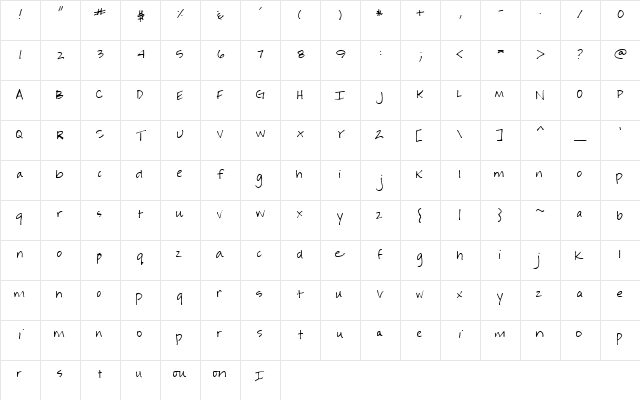
Kristin Normal Free Font
Kristin Normal
Design Context for Kristin
Kristin is a composed and adaptable typeface that performs quietly and consistently across a wide range of design contexts.
Pro Tip: Use Kristin in both headline and body roles to test its range before committing to a single application.